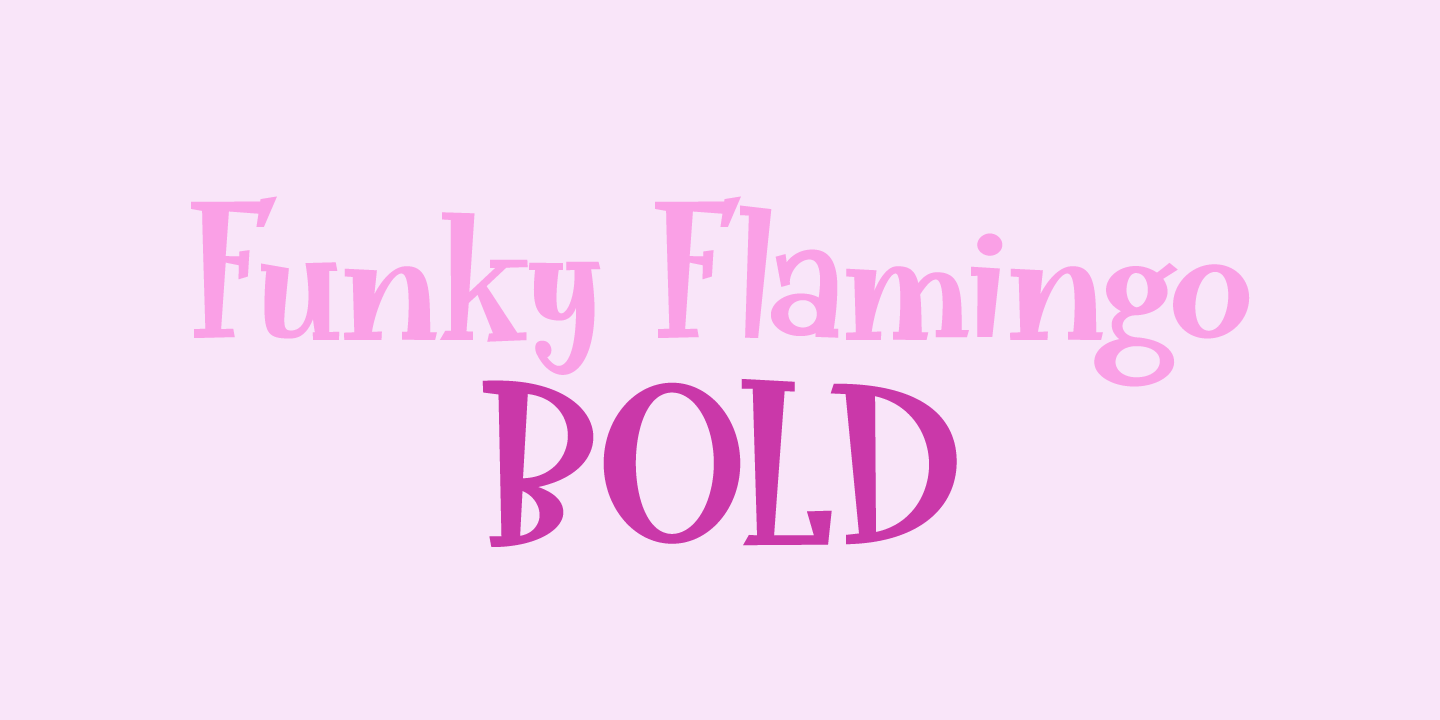
Funky Flamingo Font is perfect for tropical resorts, beach bars, summer festivals, vacation branding, poolside cafes, tropical clothing, vibrant party invitations, exotic travel agencies, and fun-loving entertainment communications. This flamboyant typeface brings tropical fun and exotic flair to projects requiring vibrant typography with playful appeal and vacation-inspired charm.
What makes Funky Flamingo Font exciting is its tropical exuberance that captures the carefree spirit of island paradise and summer vacation vibes with remarkable playfulness and exotic charm that instantly transports viewers to sunny beach destinations. The font features flamingo-inspired letterforms with tropical curves and vibrant character that reflects the joyful energy of beach culture and vacation escapism. Its flamboyant personality and exotic nature make it irresistible for vacation brands seeking typography that communicates fun while creating memorable experiences through tropical visual storytelling and paradise-inspired design language.
The Funky Flamingo Font family includes tropical weights and vacation styles: Light, Regular, Medium, Bold, and decorative variations with flamingo alternates and tropical symbols. Each weight maintains the font's exotic character while offering designers creative flexibility for vacation branding and tropical design applications requiring authentic beach atmosphere and summer visual presentation.
Whether you're designing for beach resorts or tropical entertainment, Funky Flamingo Font Free Download offers designers a vibrant, vacation-focused typeface solution. The font's tropical aesthetics and playful styling make it ideal for beach clubs, vacation rentals, tropical restaurants, and summer event planners. Its flamboyant presence ensures your message communicates fun and relaxation while maintaining excellent tropical readability. The comprehensive character set includes tropical symbols and vacation decorations, making it perfect for creating exciting headlines and brand identities that celebrate beach culture and establish memorable connections with audiences seeking authentic tropical experiences and carefree summer adventures.